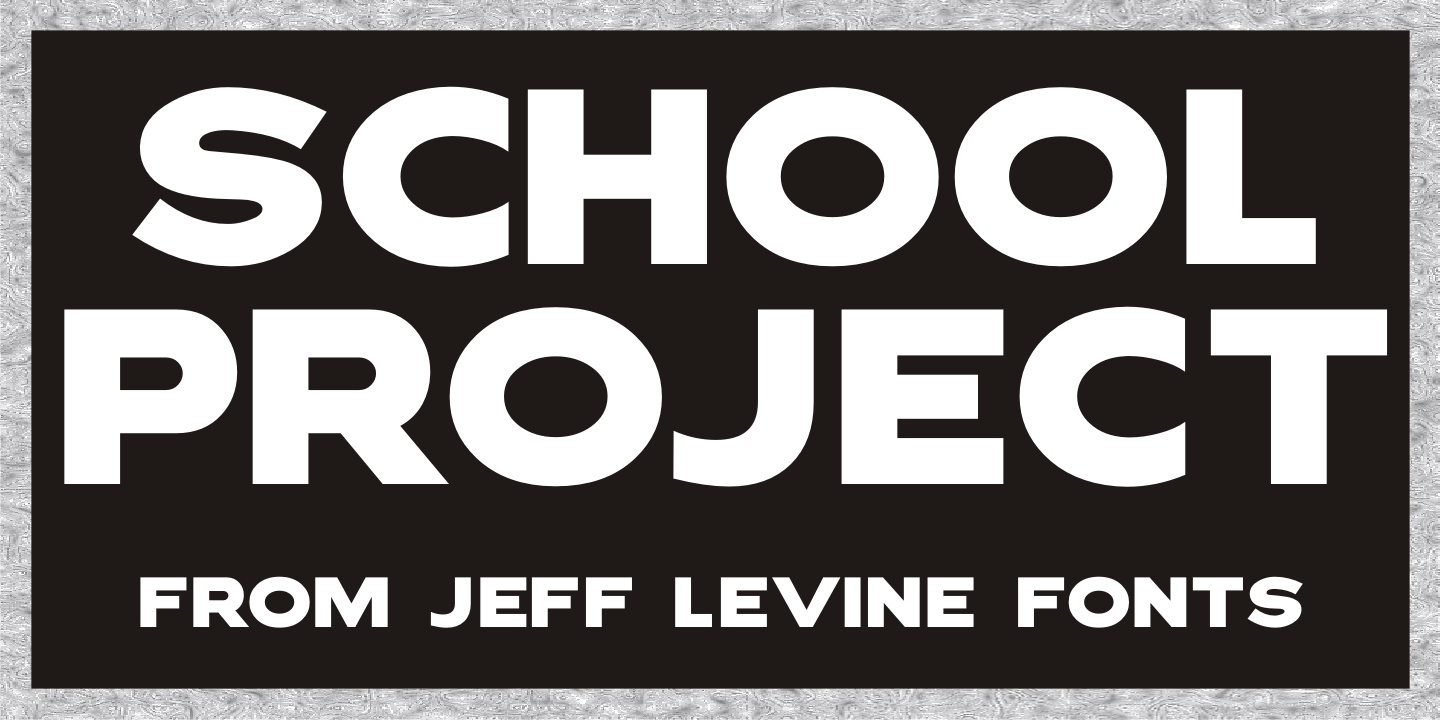
School Project
A set of self-adhesive poster board letters once made by the E-Z Letter Stencil Company and sold under the name 'Quik Stik' was the model for School Project JNL.
Ironically, the line was discontinued because they did not stick very well – the weight of the cardboard caused the letters (which used a rubber cement type of glue) to pull away from the surface they were mounted to.
Unlike vinyl self-adhesive letters (which were formulated for indoor or outdoor use) these cardboard sets were relegated to indoors only; further restricting their usability.